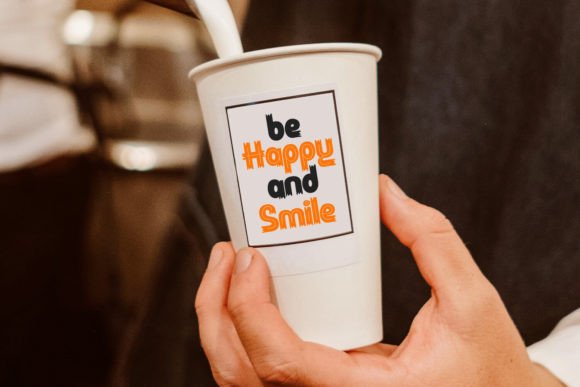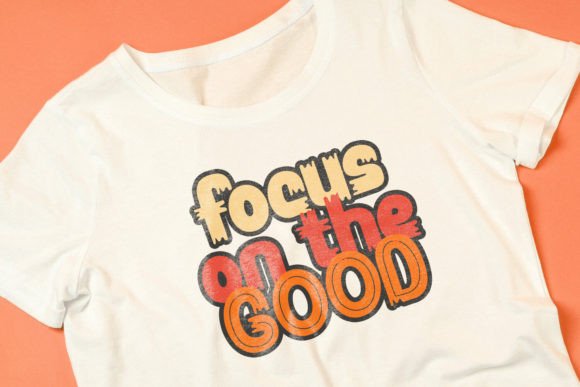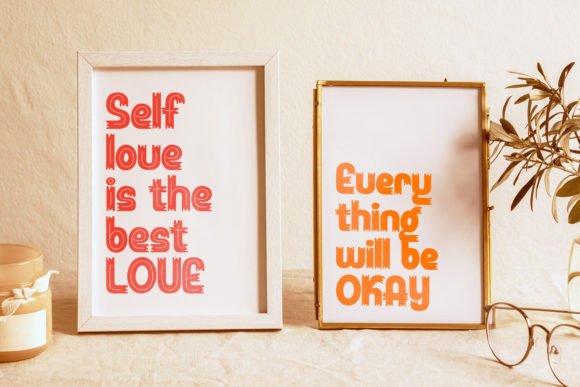
Introduction to Reglues Font Font
Fonts play a crucial role in design, and the Reglues Font font is a typeface that brings both character and versatility to any project. Whether you’re working on a branding project, a website, or a print design, the Reglues Font font offers a unique style that can elevate your work.
Reglues is a charming display font that embodies playfulness and boldness in every letter.
Designed with a thick weight and quite rounded shape, Reglues ensures your text stands out The unique characteristic of Reglues is its non-straight outline, adding a whimsical touch to its overall appearance.
Key Features of Reglues Font Font
Why Choose Reglues Font Font?
The Reglues Font font is more than just a typeface – it’s a design tool that helps you communicate your message with style and clarity. Its unique character set and versatile design make it suitable for a wide range of applications, from elegant invitations to bold headlines.
With its carefully crafted letterforms and balanced proportions, the Reglues Font font ensures readability and visual appeal across all mediums.
What makes Reglues Font font special?
The Reglues Font font stands out with its unique design, exceptional readability, and versatility across various design applications.